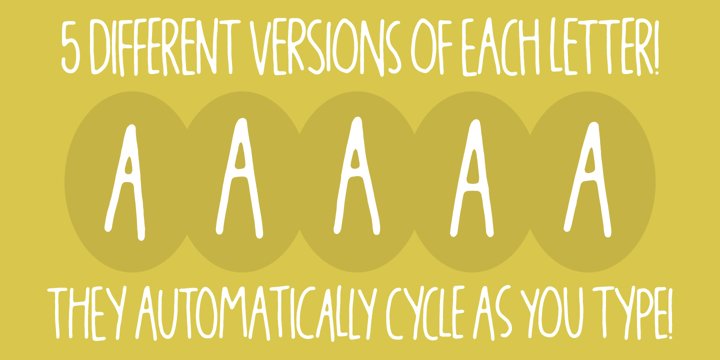
Blikfang
by Bogstav
The Blikfang Font Family was designed by and published by Bogstav. Blikfang contains 1 styles. More about this family
All caps font that just want to be your friend, and maybe the font you use for your next project! :)